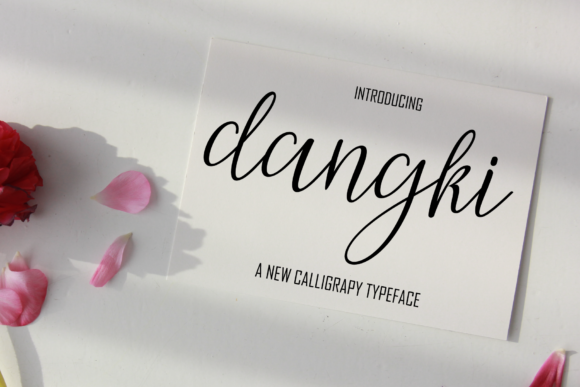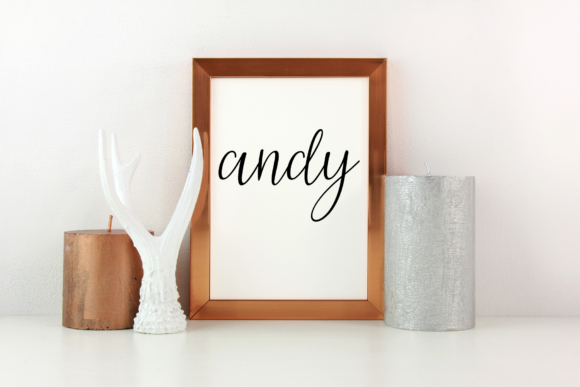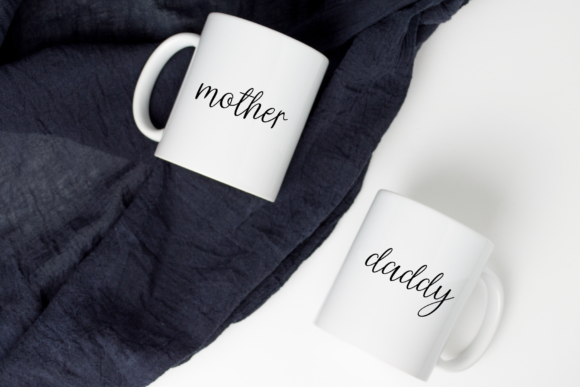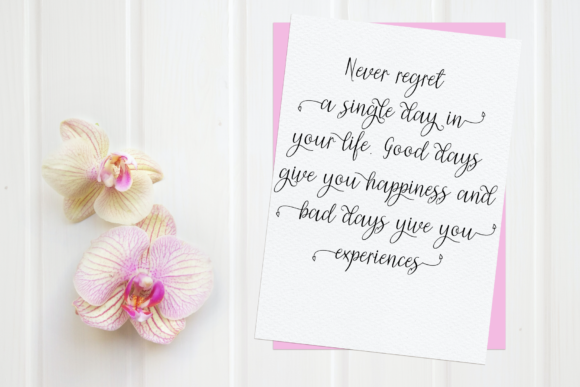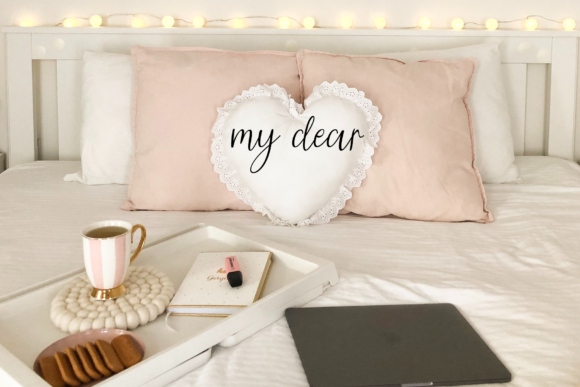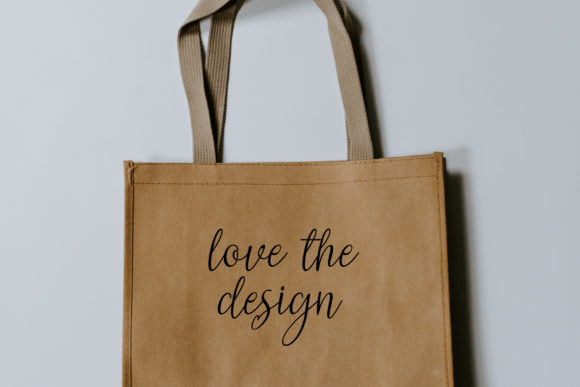
Dangki Font: The Ultimate Romantic Handwritten Font for Designers and Crafters
Are you looking for a beautiful handwritten font that exudes romance and elegance? Look no further than Dangki Font! This stunning font is perfect for designers and crafters who want to add a touch of sophistication and whimsy to their projects. In this article, we’ll dive into the features and benefits of Dangki Font, and explore how you can use it to create gorgeous wedding invitations, stunning stationary art, eye-catching social media posts, and more!
What is Dangki Font?
Dangki Font is a beautiful handwritten font with a romantic feel. Its incredibly versatile style makes it perfect for a wide range of design projects, from wedding invitations and stationary art to social media posts and more. The font features a delicate, cursive script with a whimsical touch, making it perfect for designers and crafters who want to add a touch of elegance and sophistication to their work.
Key Features of Dangki Font
- Handwritten Style: Dangki Font features a beautiful handwritten style with a romantic feel. Its delicate, cursive script is perfect for creating elegant and sophisticated designs.
- Versatile: Dangki Font is incredibly versatile, making it perfect for a wide range of design projects. Use it to create wedding invitations, stationary art, social media posts, and more!
Uses for Dangki Font
Dangki Font is perfect for a wide range of design projects, including:
- Wedding Invitations: Create gorgeous wedding invitations with Dangki Font. Its romantic feel and elegant style make it perfect for wedding stationery.
- Stationary Art: Use Dangki Font to create beautiful stationary art, including greeting cards, thank you cards, and more.
- Social Media Posts: Add a touch of elegance and sophistication to your social media posts with Dangki Font. Its whimsical style is perfect for creating eye-catching graphics and posts.
- Branding: Use Dangki Font to create a unique and memorable brand identity. Its versatile style makes it perfect for logos, business cards, and more.
Tips for Using Dangki Font
Here are a few tips for using Dangki Font in your designs:
- Experiment with Swashes: Dangki Font features a range of swashes and glyphs that you can use to customize your designs. Experiment with different combinations to create a unique look.
- Pair with Other Fonts: Dangki Font pairs perfectly with other fonts, including serif and sans-serif fonts. Experiment with different pairings to create a unique look.
- Use for Headlines and Titles: Dangki Font is perfect for headlines and titles. Use it to add a touch of elegance and sophistication to your designs.
Dangki Font is a beautiful handwritten font with a romantic feel. Its incredibly versatile style makes it perfect for a wide range of design projects, from wedding invitations and stationary art to social media posts and more. With its PUA encoding and range of swashes and glyphs, Dangki Font is the perfect choice for designers and crafters who want to add a touch of elegance and sophistication to their work. So why wait? Download Dangki Font today and start creating stunning designs that will leave a lasting impression!